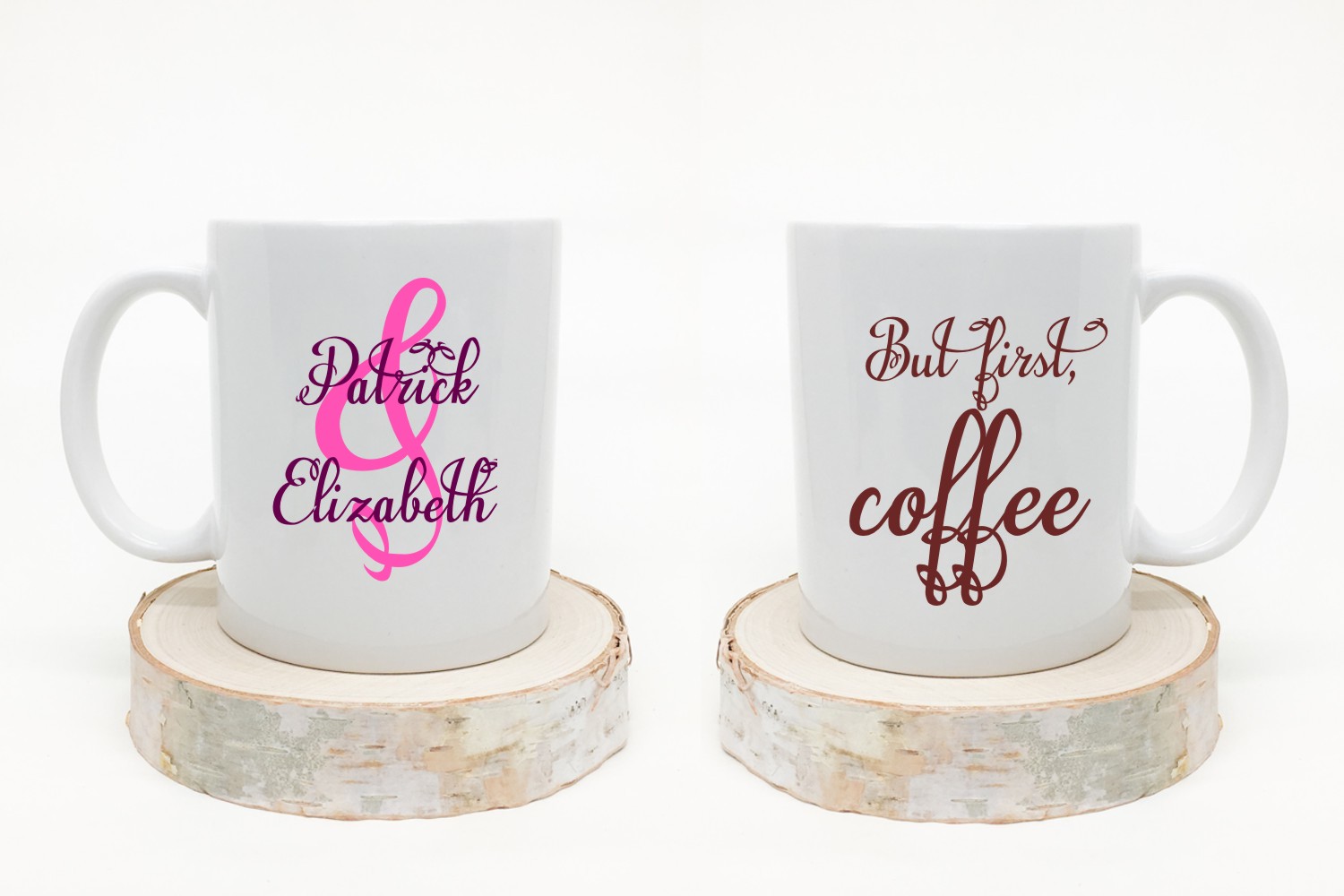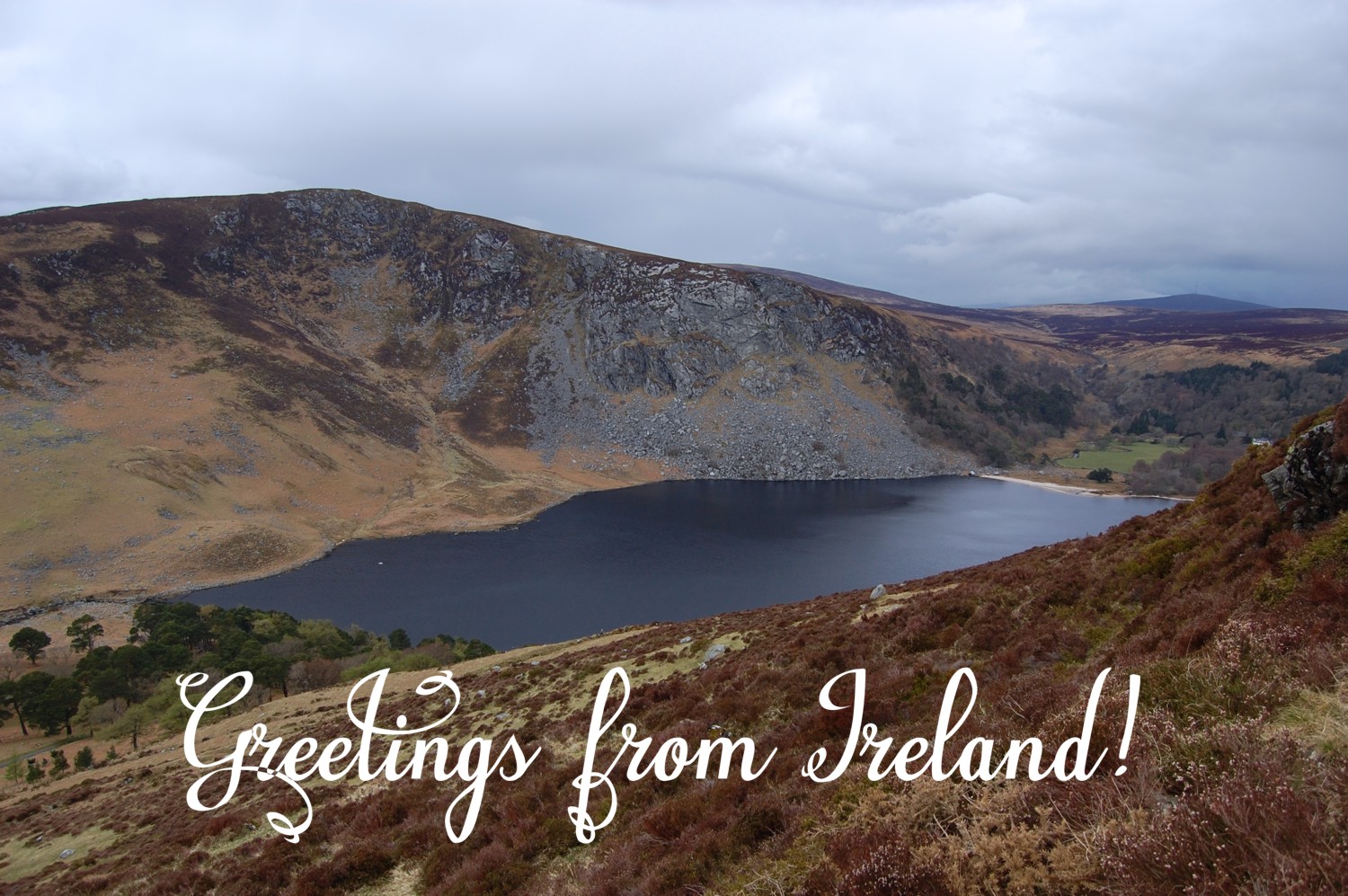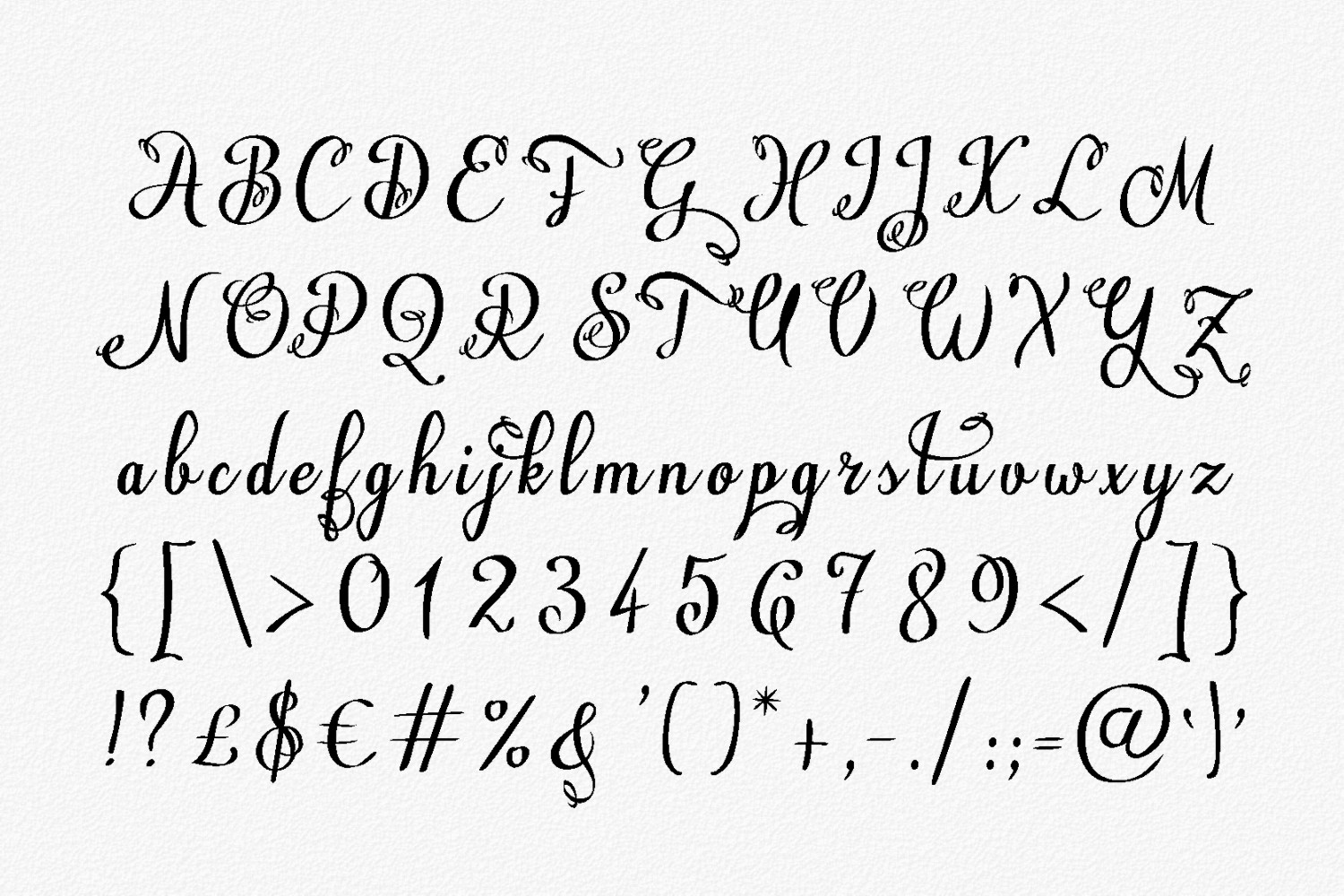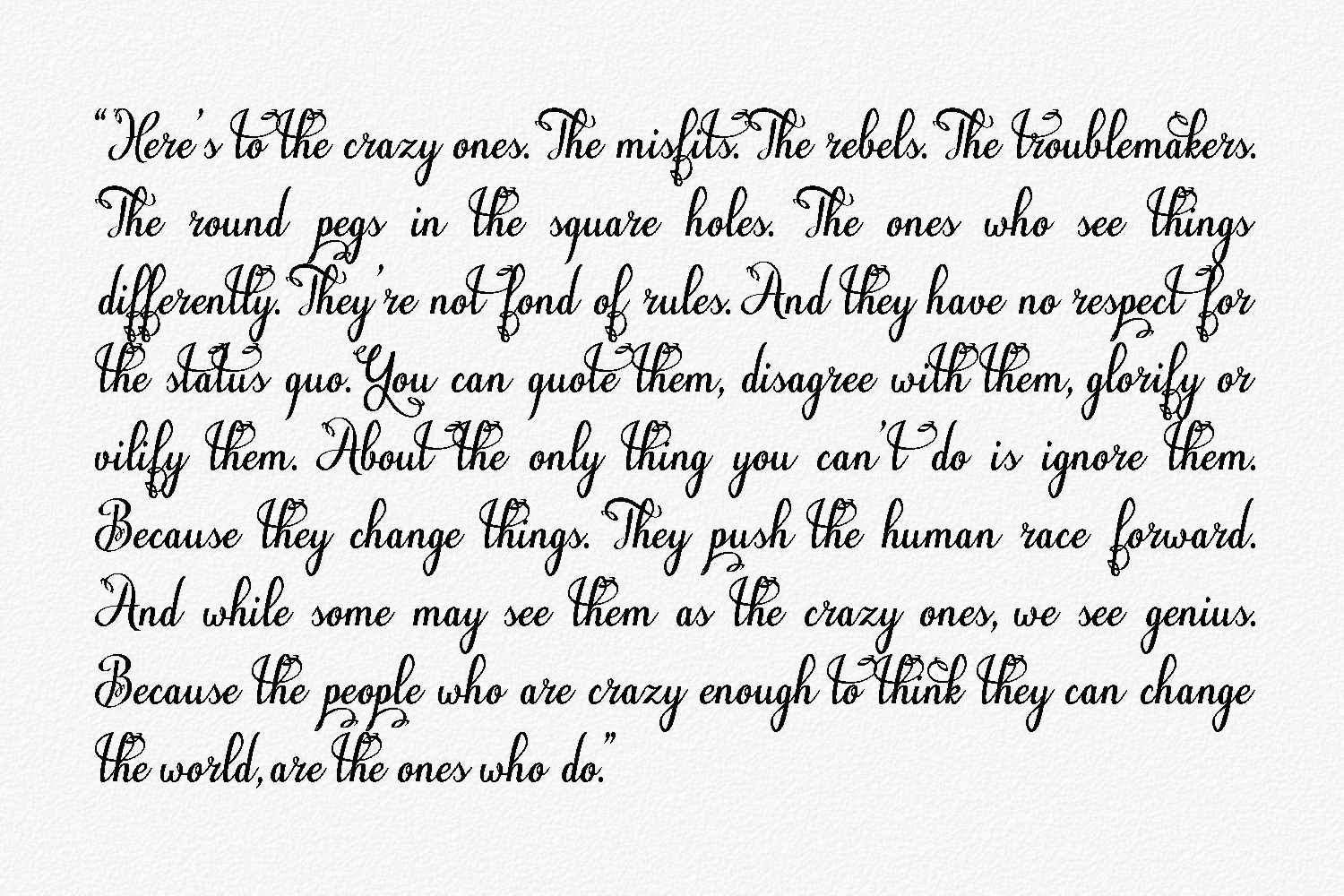
Introduction to Natyl Font
Have you ever been stuck on a creative project, frantically searching for the perfect font to bring your design to life? I know I have. And then, like a breath of fresh air, you stumble upon something truly special – the Natyl Font. This beautifully crafted calligraphy typeface is the ultimate game-changer for designers looking to add a touch of elegance and whimsy to their work.
With its playful embellishments and high-quality design, Natyl Font is the perfect tool for creative projects that require a little extra flair. Whether you’re working on a logo, brochure, or social media campaign, this versatile font is sure to elevate your design and leave a lasting impression.
Key Features of Natyl Font
- High-quality, professional design for creative projects and presentations.
- Unique, elegant script font with a transparent background, perfect for overlaying on images.
- Font size: 1,000 characters, including uppercase and lowercase letters, numbers, and punctuation marks.
- Perfect for use in various design projects, such as logos, invitations, and social media graphics.
Honest Review: Natyl Font
I recently stumbled upon the Natyl Font, and I must say, it’s been a game-changer for my creative project. The high quality of this font is evident, making it perfect for any design resource. The transparent background is a bonus, allowing me to easily blend it with my design elements.
While the Natyl Font is an excellent addition to any design arsenal, I do have a few limitations to mention. ⚠️ One of the drawbacks is that the font may not be suitable for very small text sizes, as it can become difficult to read. Additionally, some users may find the font’s style a bit too modern or trendy.
Overall, I’m thoroughly impressed with the Natyl Font. It’s a great design resource that has elevated my creative project to the next level. I highly recommend it to anyone looking for a high-quality, versatile font.
- High-quality font with a transparent background
- Perfect for creative projects and design resources
Natyl Font
The Natyl Font is a high-quality, free download design resource ideal for creative projects. This versatile font features a transparent background, making it perfect for overlaying on images or backgrounds.
Tips for Getting the Most Out of Natyl Font
To get the most out of the Natyl Font, use it in combination with other design elements, such as images and graphics. Experiment with different font sizes, colors, and styles to create a unique and eye-catching design.
Common Use Cases for Natyl Font
The Natyl Font is commonly used for creative projects, such as social media graphics, presentations, and business documents. It’s also ideal for use in logos, brochures, and posters.